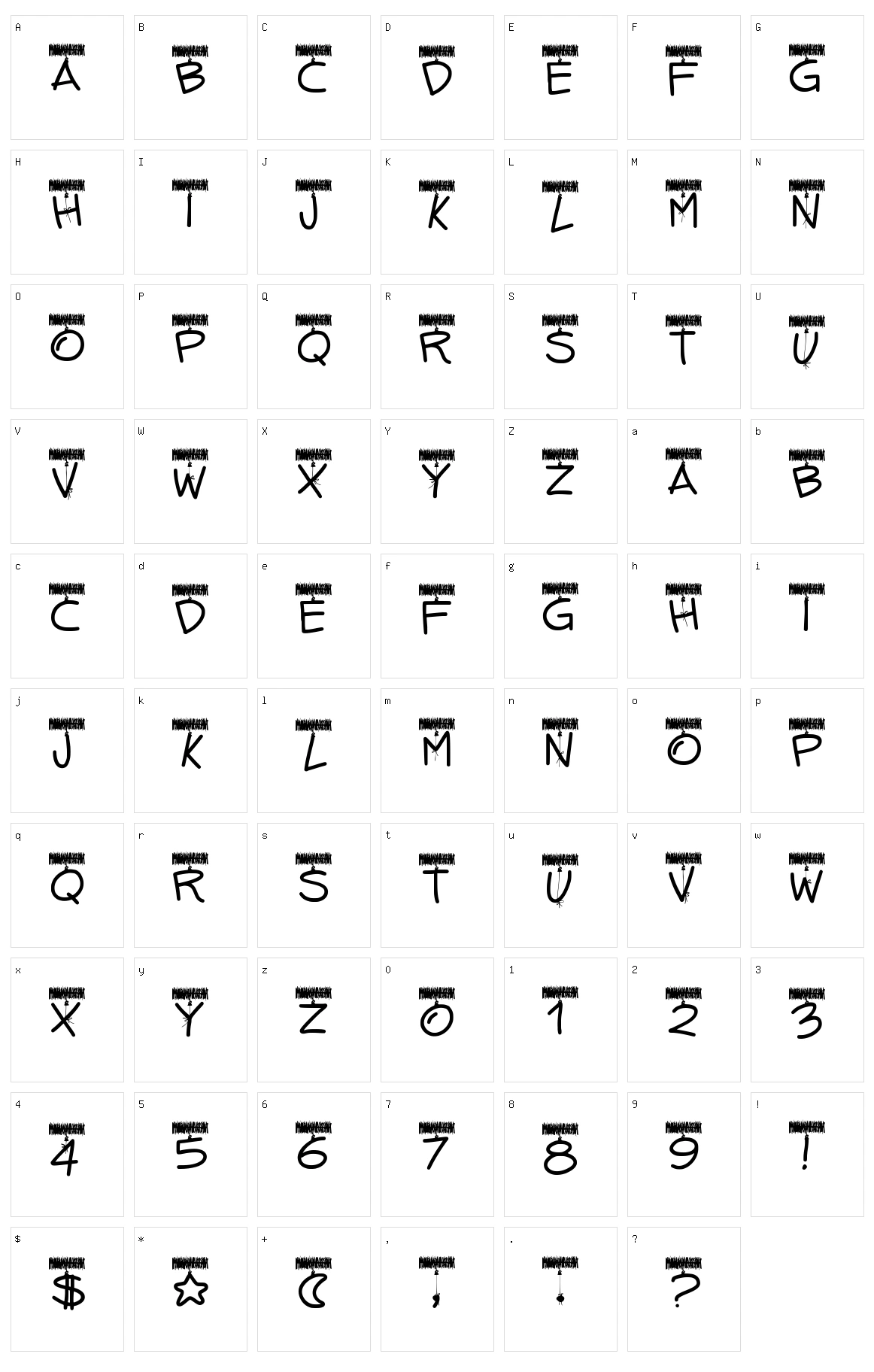
The free font PW Tinsel Letters is carefully designed by Peax Webdesign, showcasing a thoughtful balance of creativity and usability and falls under the Christmas font style. When you download the ZIP file, it contains only 318.51 KB of font files, making it lightweight and quick to download. Please review the license details below to understand permitted usage and distribution rights. If license information is not available, we recommend using this font for personal projects only or contacting the author directly for commercial usage permissions.